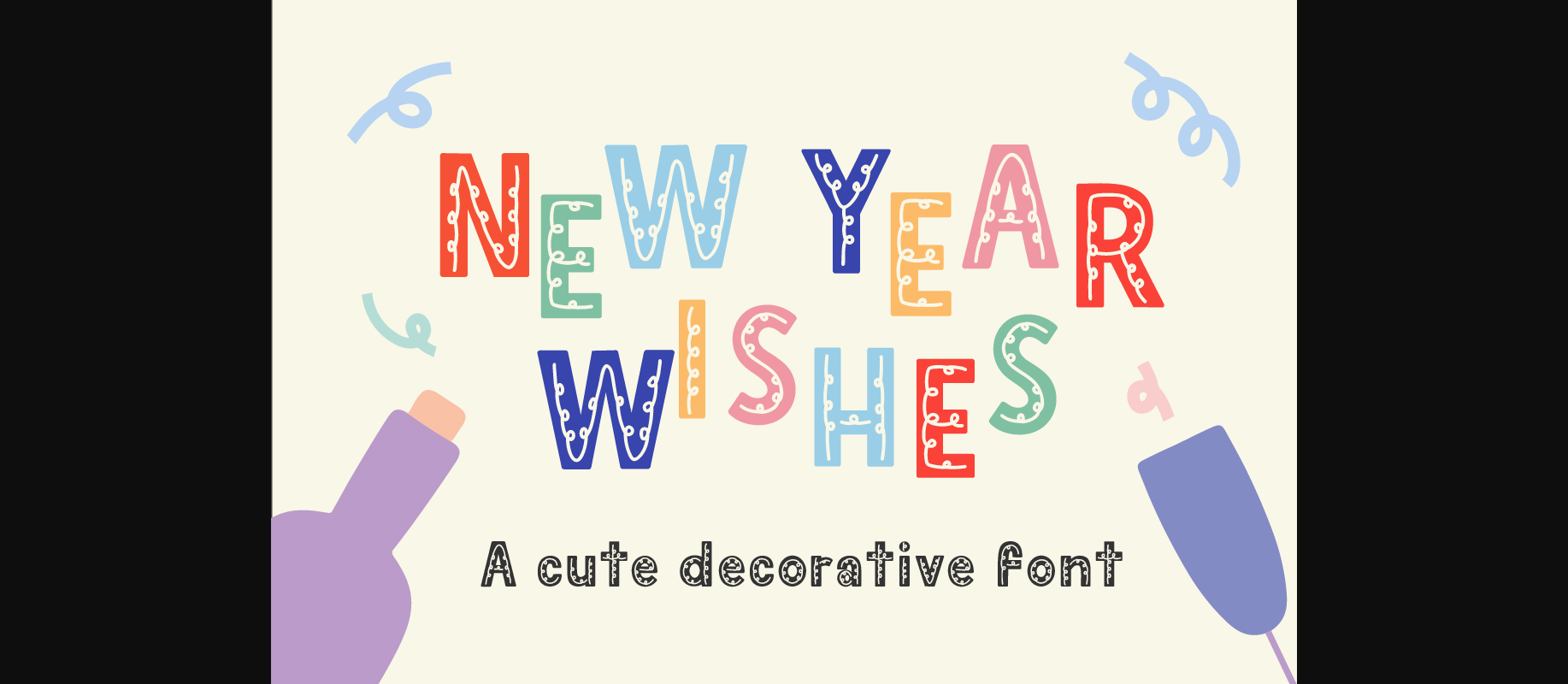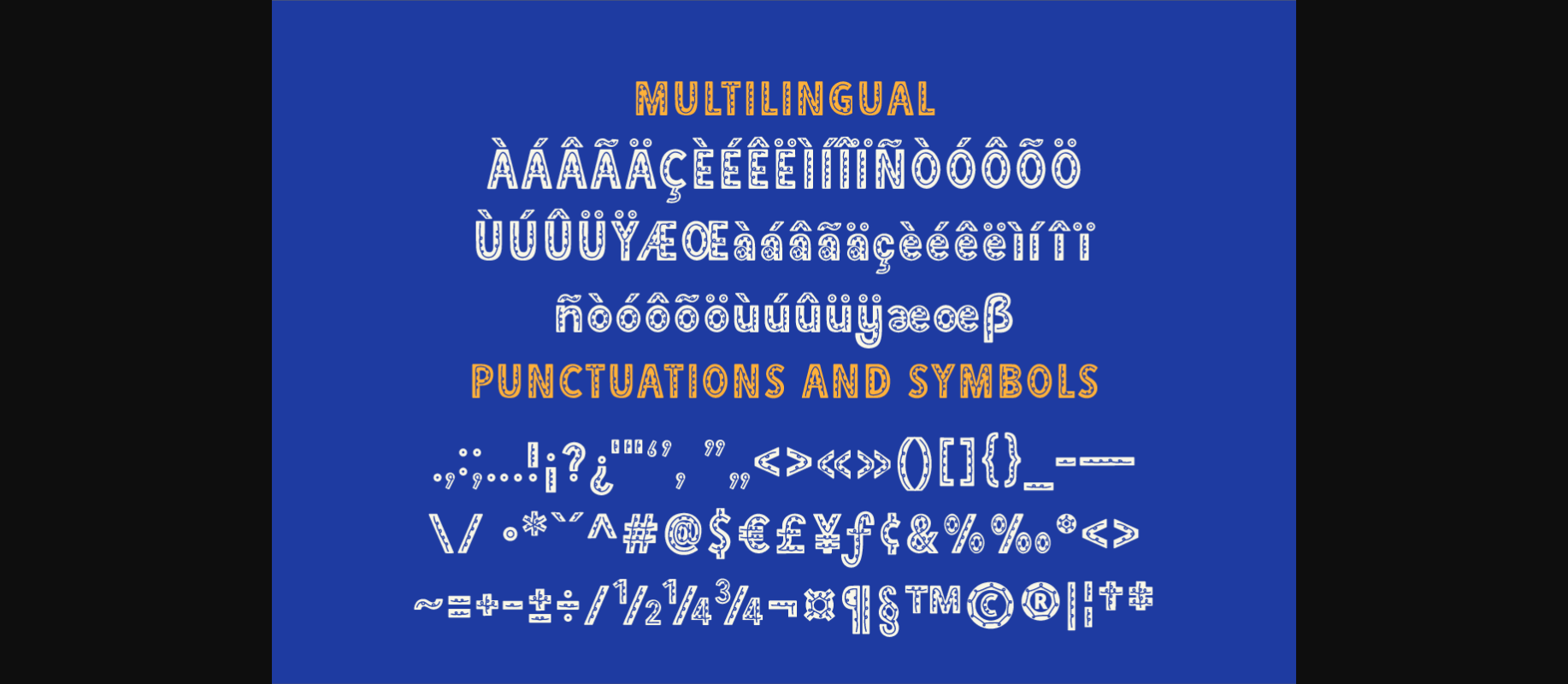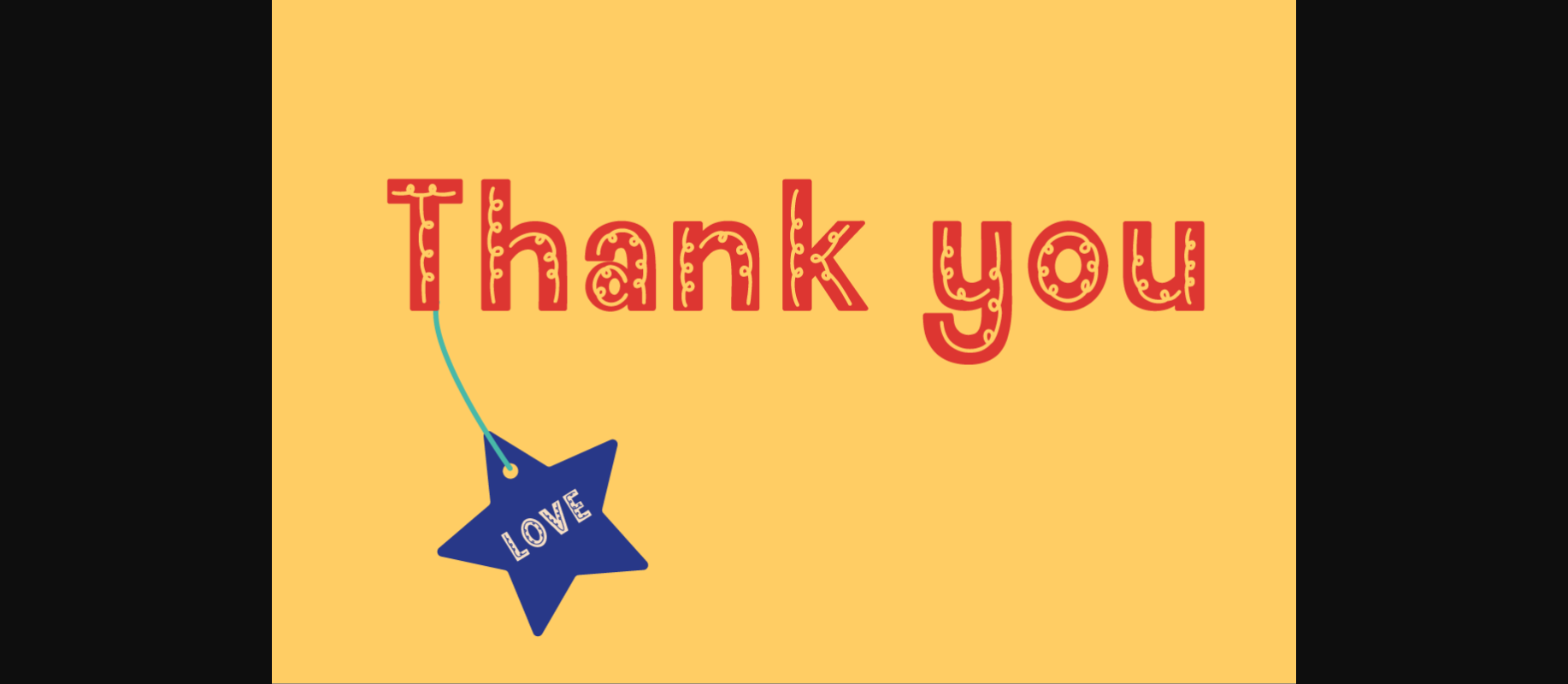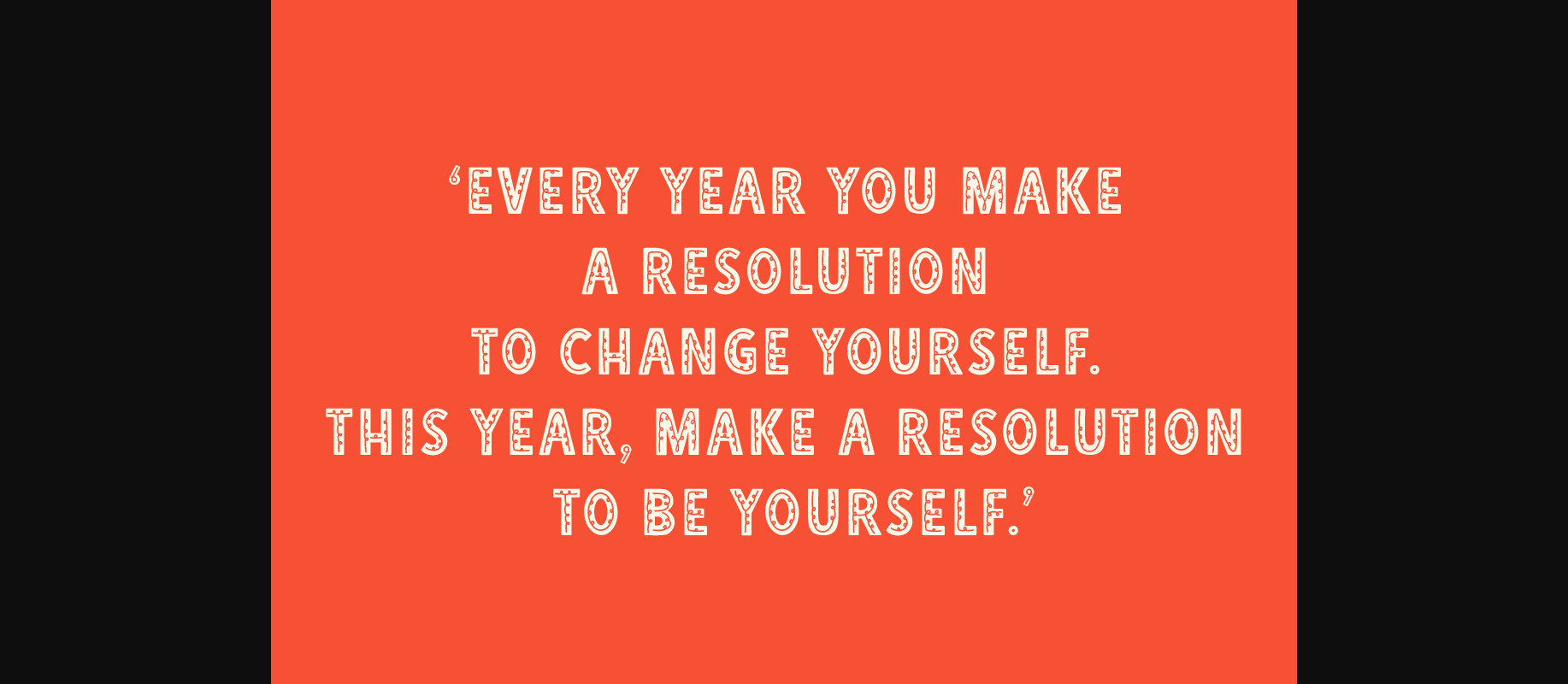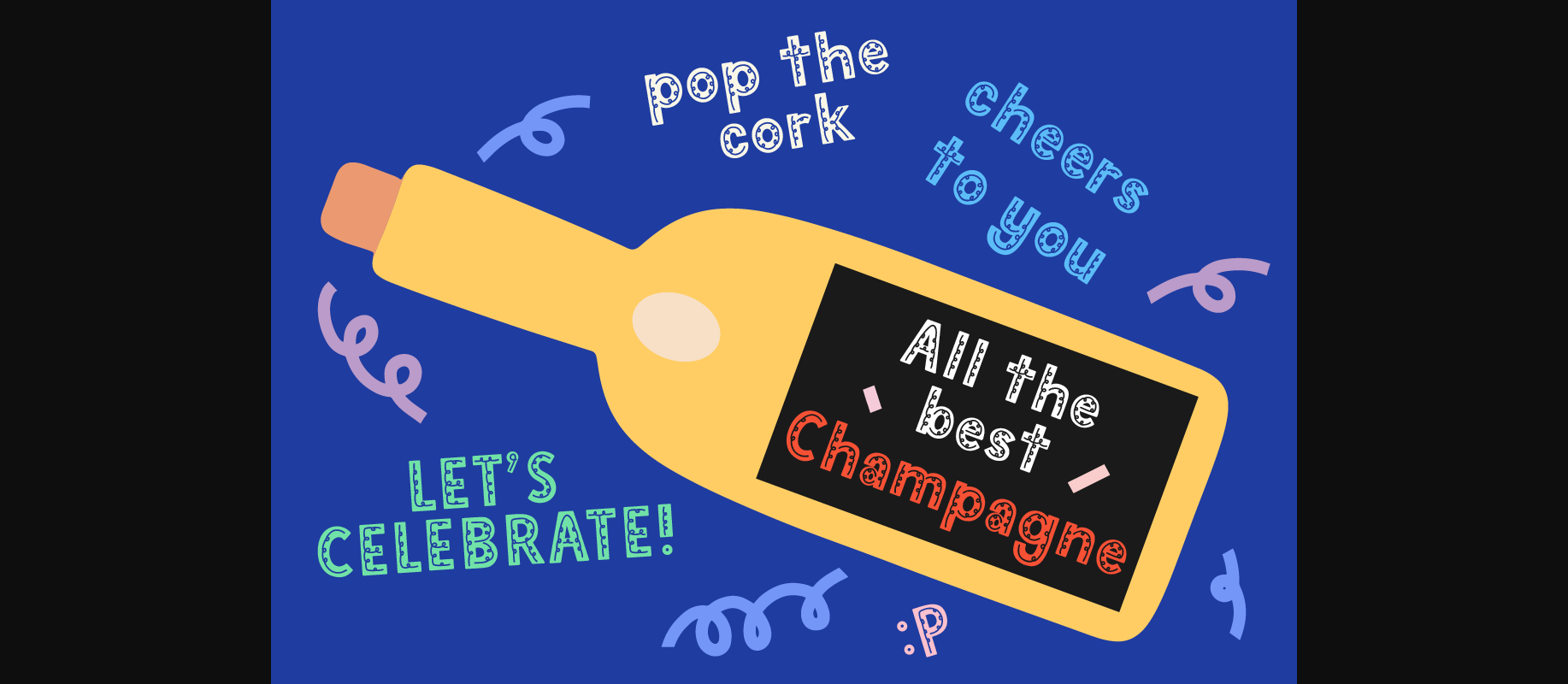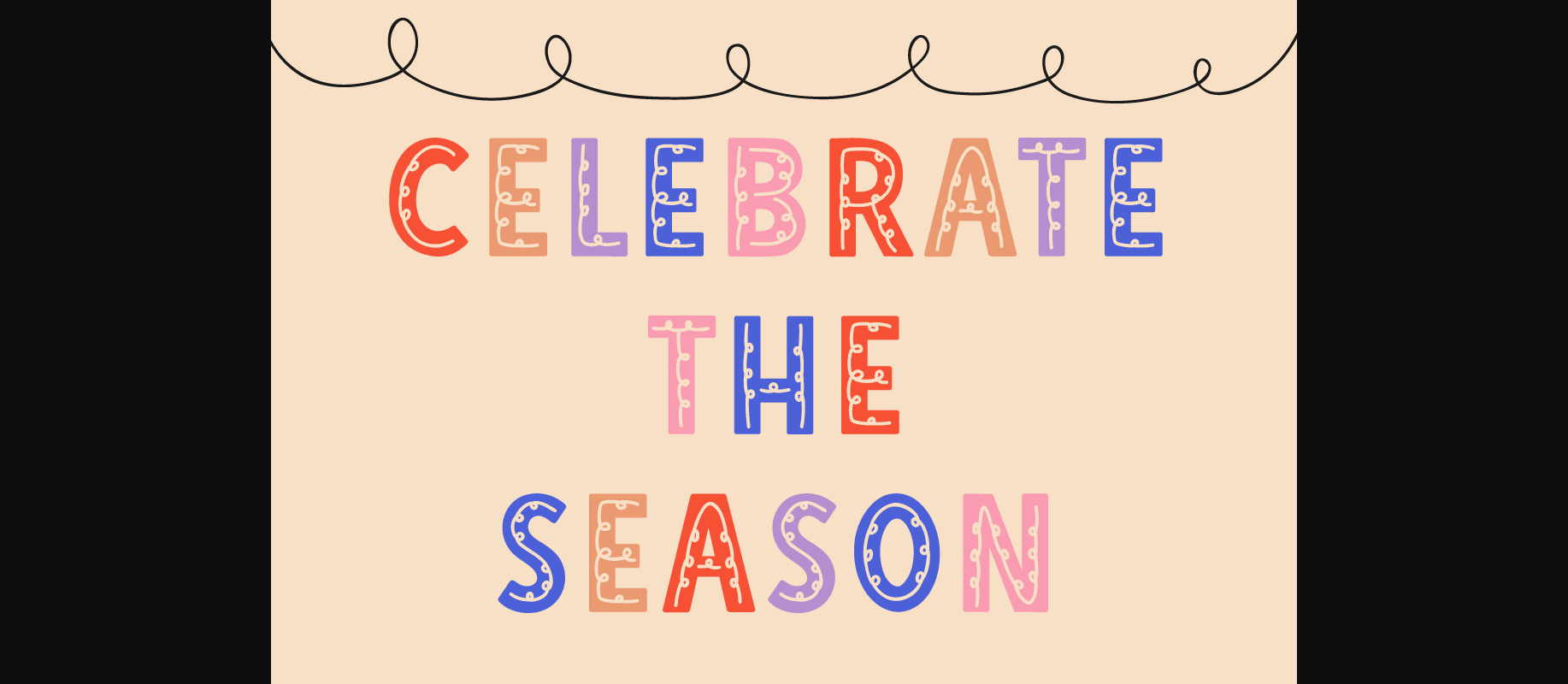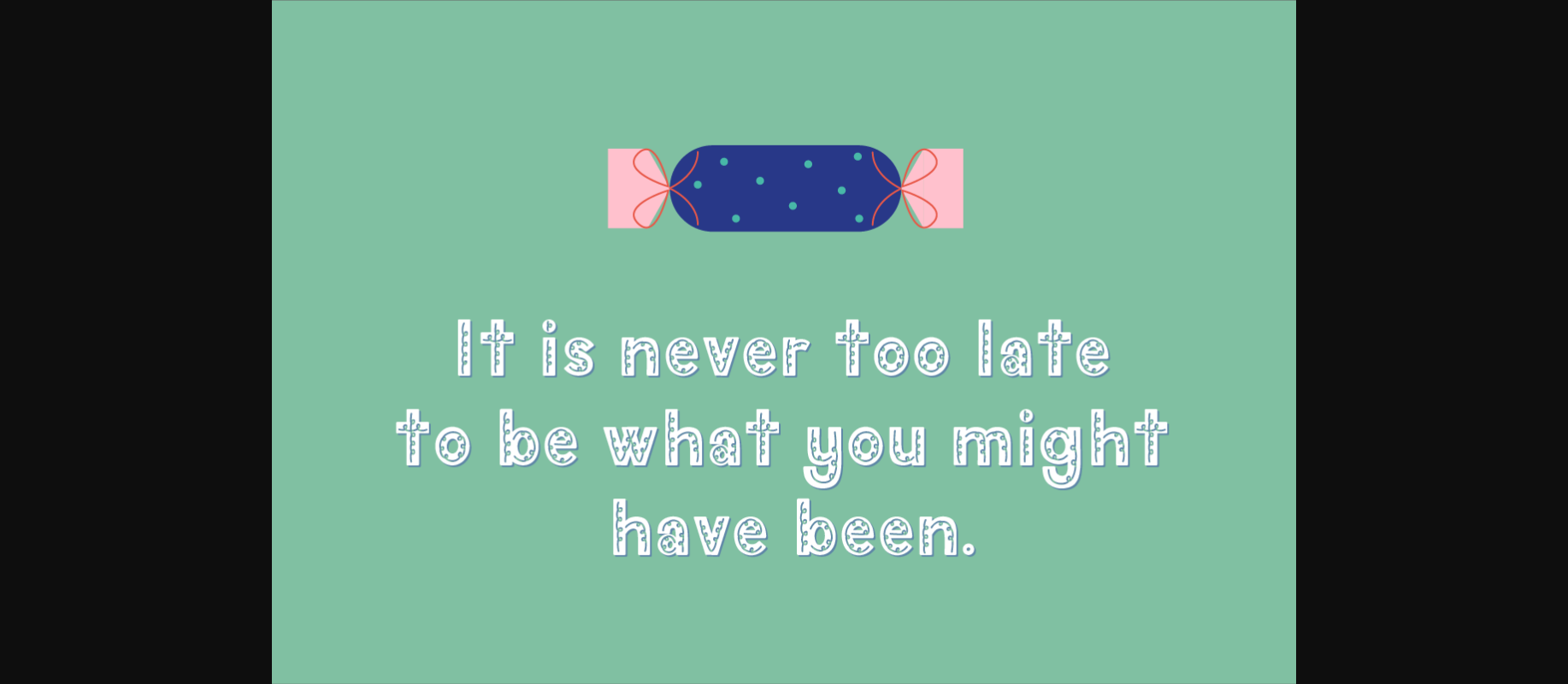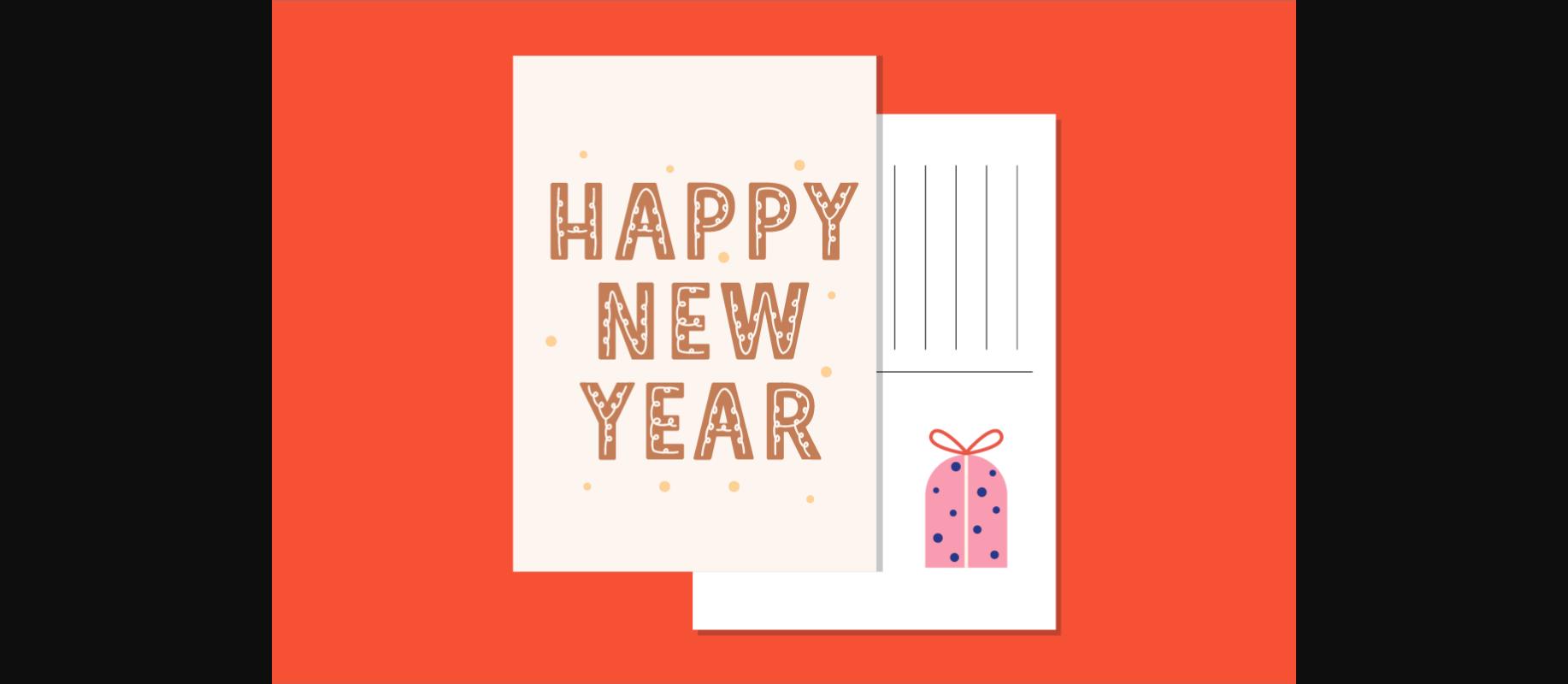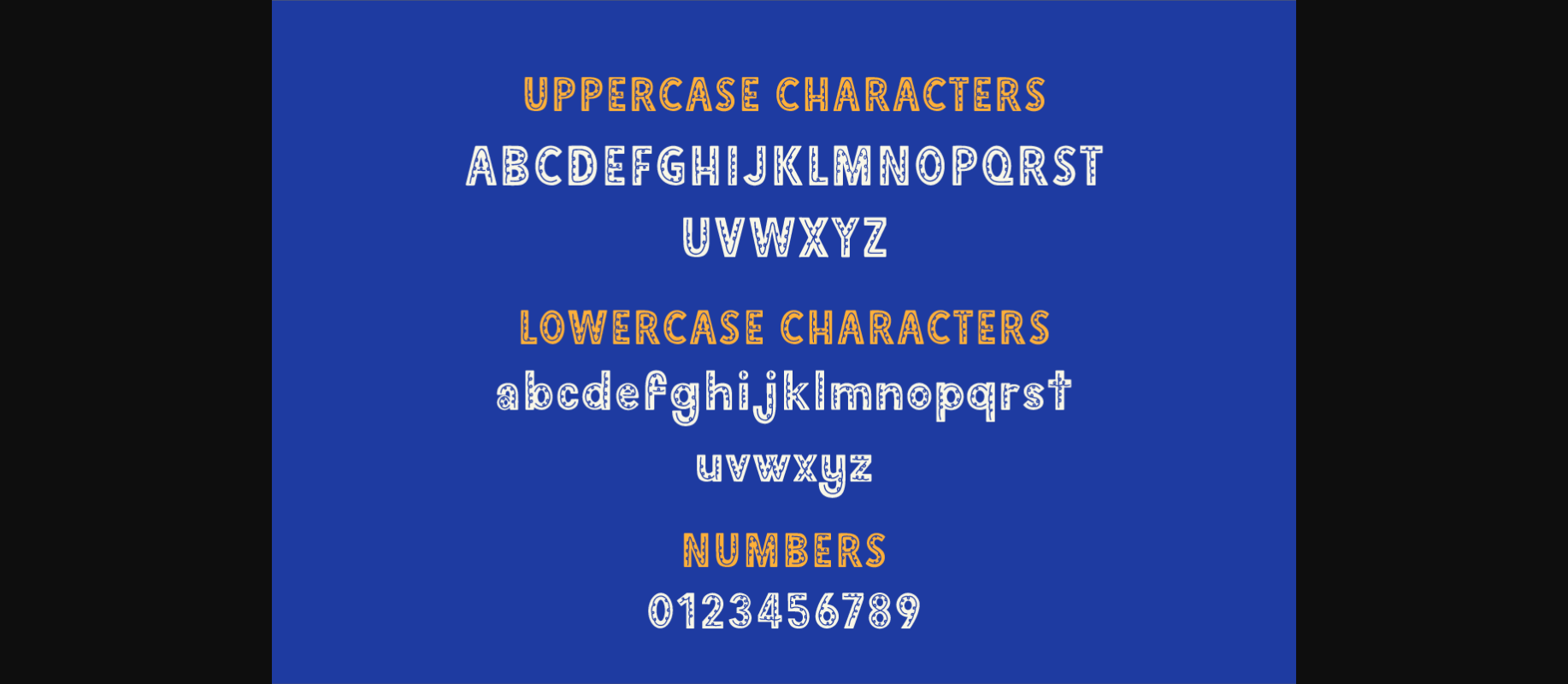
About New Year Wishes Font
NEW YEAR WISHES is a playful decorative font. Perfect for circuit projects, shirts, retro designs, invitation cards, mugs, stickers, playful quotes, creating posters, logos, greeting cards, packaging, decorating the illustration and so much more!
New year wishes Features:
* Full set of alphabet both uppercase and lowercase.
* Extended punctuation.
* Multilingual Characters support.